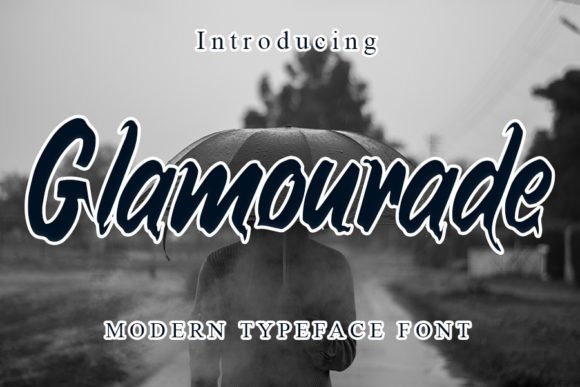
Discover the Timeless Elegance of the Glamourade Font
As designers, we’ve all been there – staring at a blank canvas, trying to find the perfect font to elevate our project. It’s that moment when everything comes together, and your vision finally takes shape. For me, it was when I stumbled upon the Glamourade Font, and I knew I had found something special. This sweet and elegant typeface font is a masterful blend of classic calligraphy and modern sophistication.
The Glamourade Font is more than just a pretty face; it’s a valuable tool for designers looking to add a touch of sophistication to their work. Its versatility makes it perfect for a wide range of projects, from wedding invitations to luxury brand logos. With the Glamourade Font, you’ll be able to bring your projects to the highest levels of elegance and refinement.
Glamourade Font Key Features
- Font Family: Glamourade Font is a unique, hand-drawn font family designed for various applications.
- Unique Characteristics: Features a mix of elegant and playful elements, making it suitable for various design projects, from fashion and beauty to children’s books and editorial content.
Glamourade Font Review
As a designer, I was excited to try out the Glamourade font. Here’s my honest review.
- The font has a unique and elegant touch, perfect for luxury or high-end brand designs.
- The script and cursive styles are smooth and flowing, making it ideal for invitation or wedding designs.
- The font is highly customizable, with a wide range of weights and styles available.
- The font may not be suitable for body text due to its ornate and decorative nature.
- The font’s complexity may make it difficult to pair with other fonts, requiring careful selection.
- The font may not be legible at very small sizes, which could be a concern for digital designs.
The Glamourade font is a beautiful and sophisticated addition to any designer’s toolkit. While it may have some limitations, its unique charm and elegance make it a great choice for special occasions or high-end brand designs. With careful selection and customization, this font can add a touch of glamour to any project.
Use the Glamourade Font in bold or italic styles to add emphasis to your text. Experiment with different font sizes and colors to create a visually appealing design. Use the font in combination with other design elements, such as images or graphics, to add depth and interest to your design.
The Glamourade Font is perfect for creating elegant and sophisticated designs, such as:
- Formal event invitations and programs
- High-end product packaging and labels
- Magazine and newspaper headlines
Yes, the Glamourade Font is optimized for digital use, ensuring it looks great on screens and in print. It features advanced kerning and spacing, making it perfect for use in digital applications, such as websites, social media, and mobile apps.